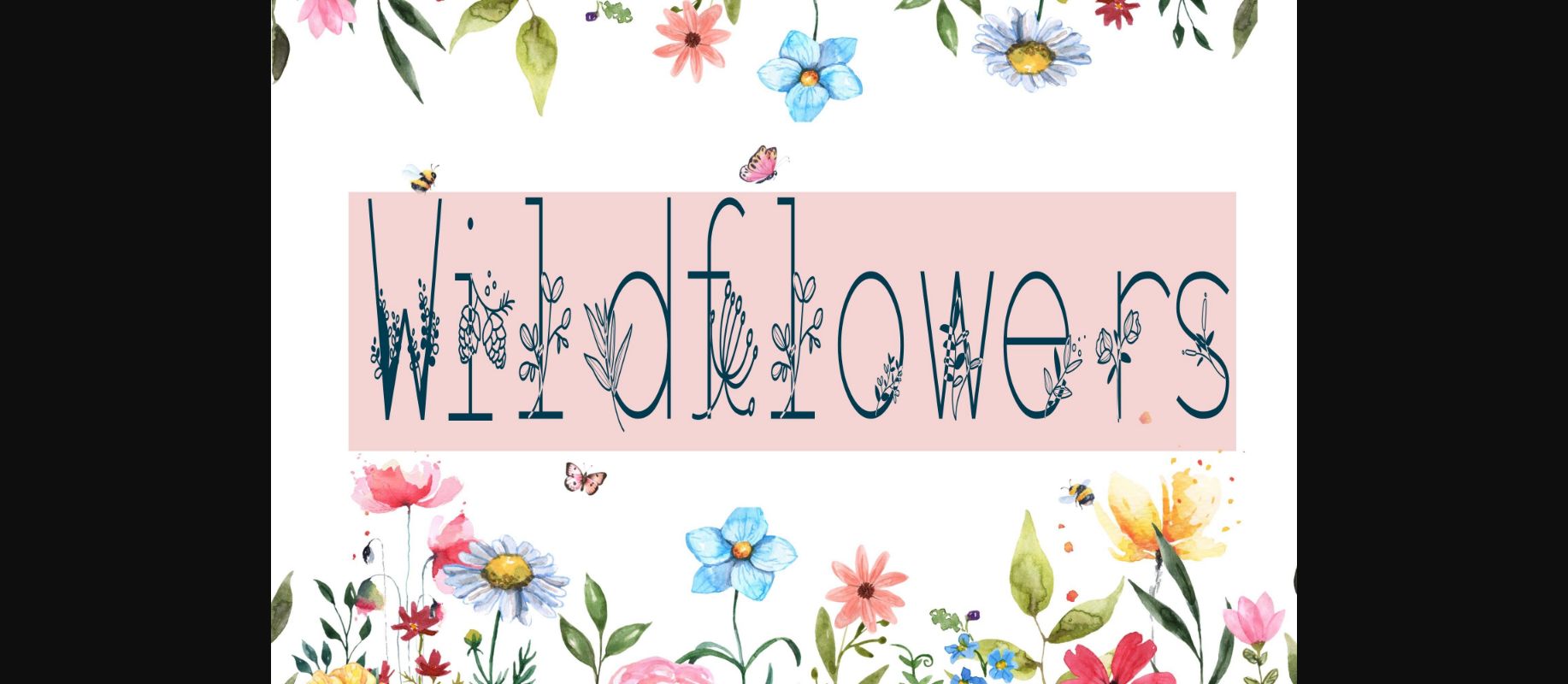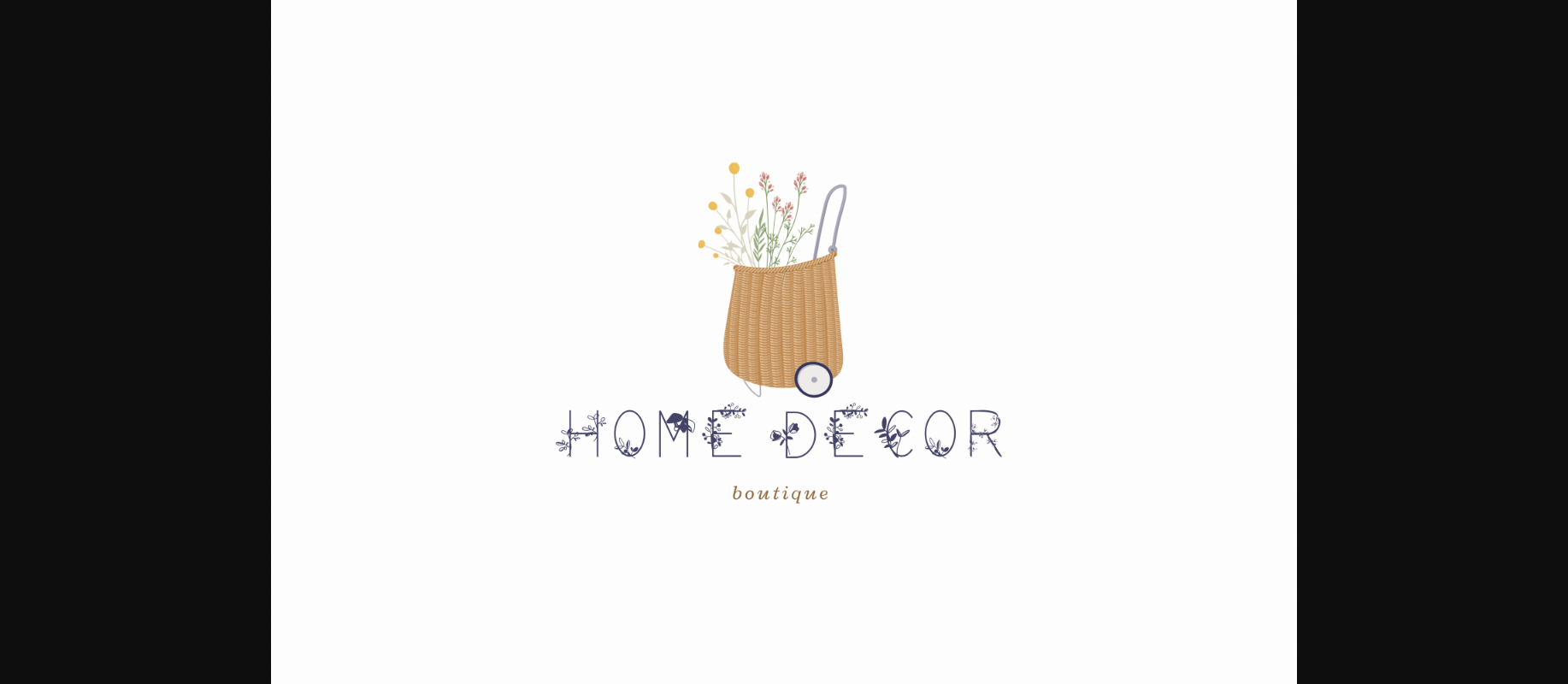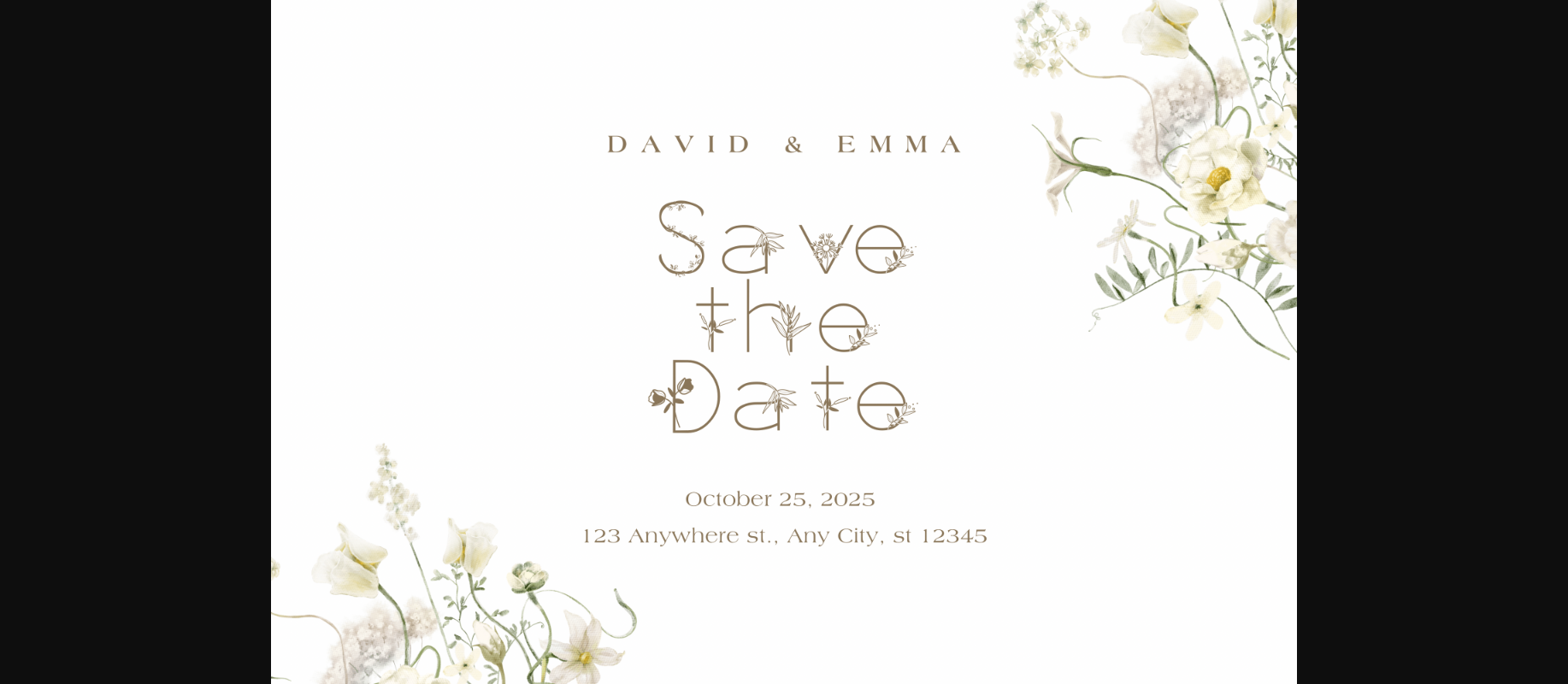
Wildflowers Font
About Wildflowers Font
Wildflowers is a cute and lovely decorative font. It embodies playfulness and authenticity and is the perfect choice for decorations for weddings, parties, or any children’s activity projects.